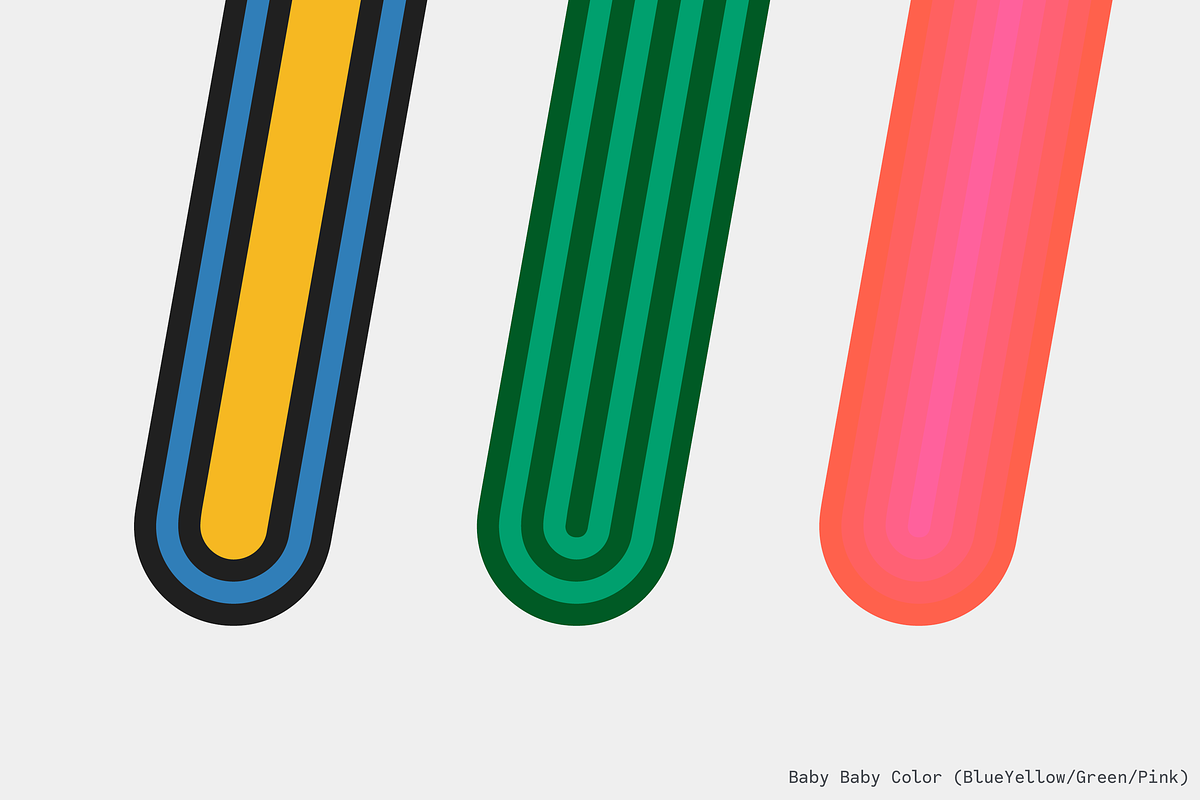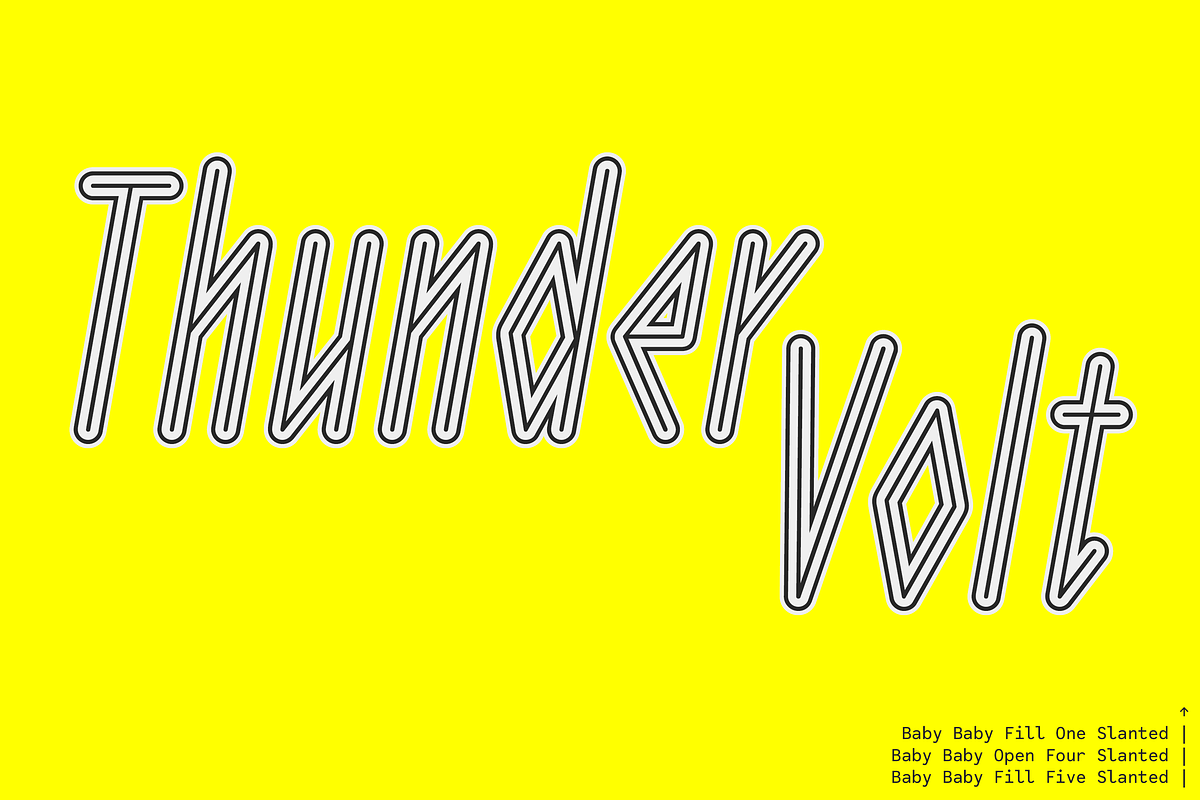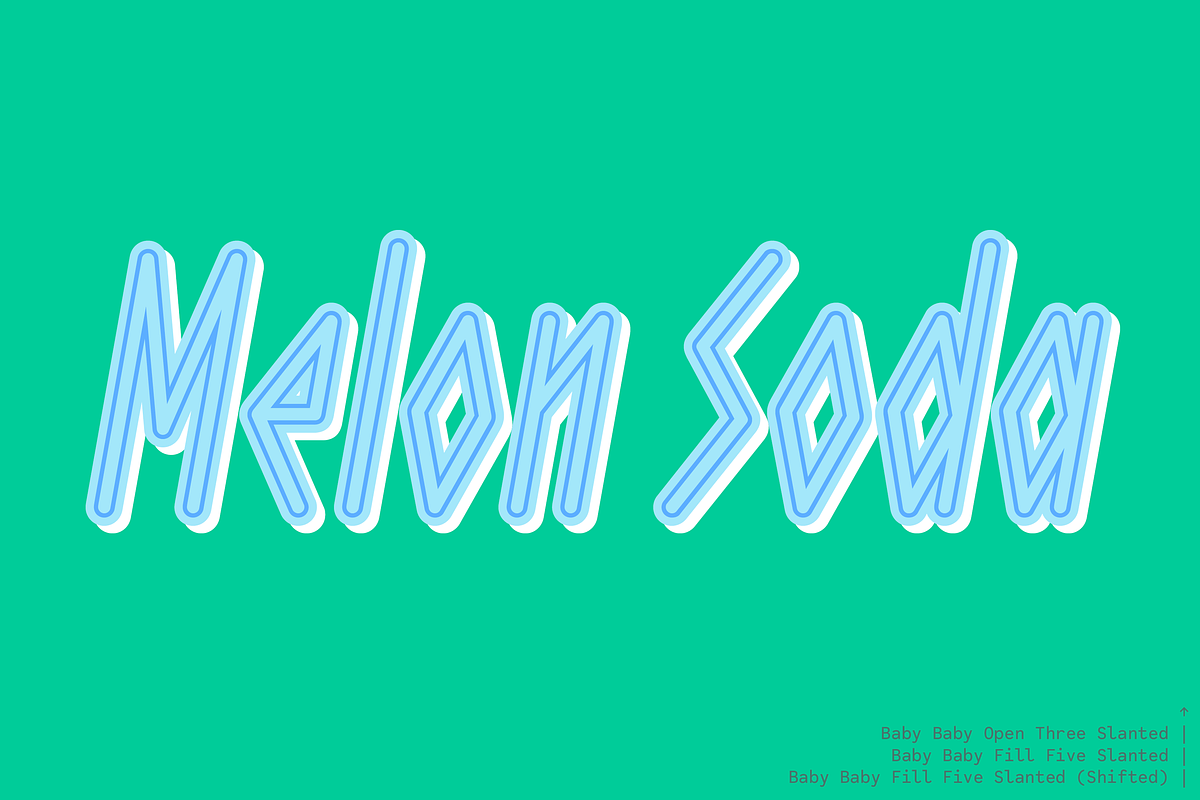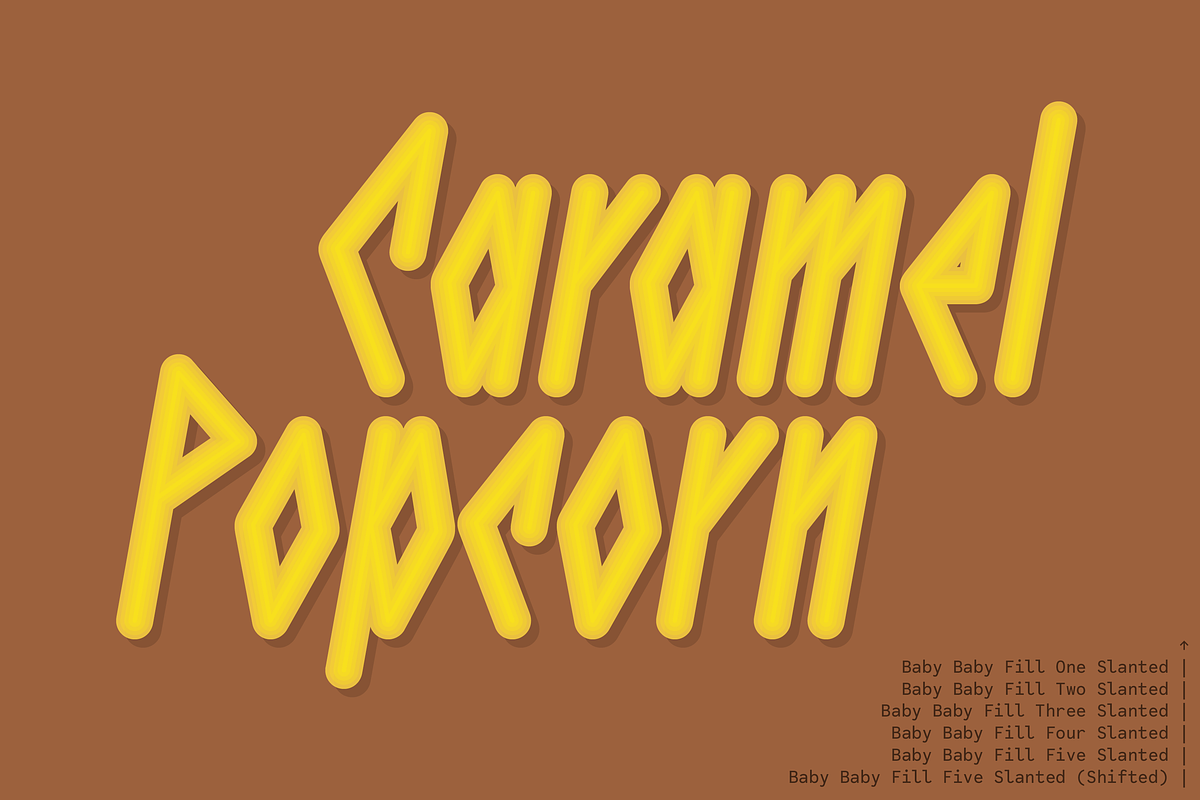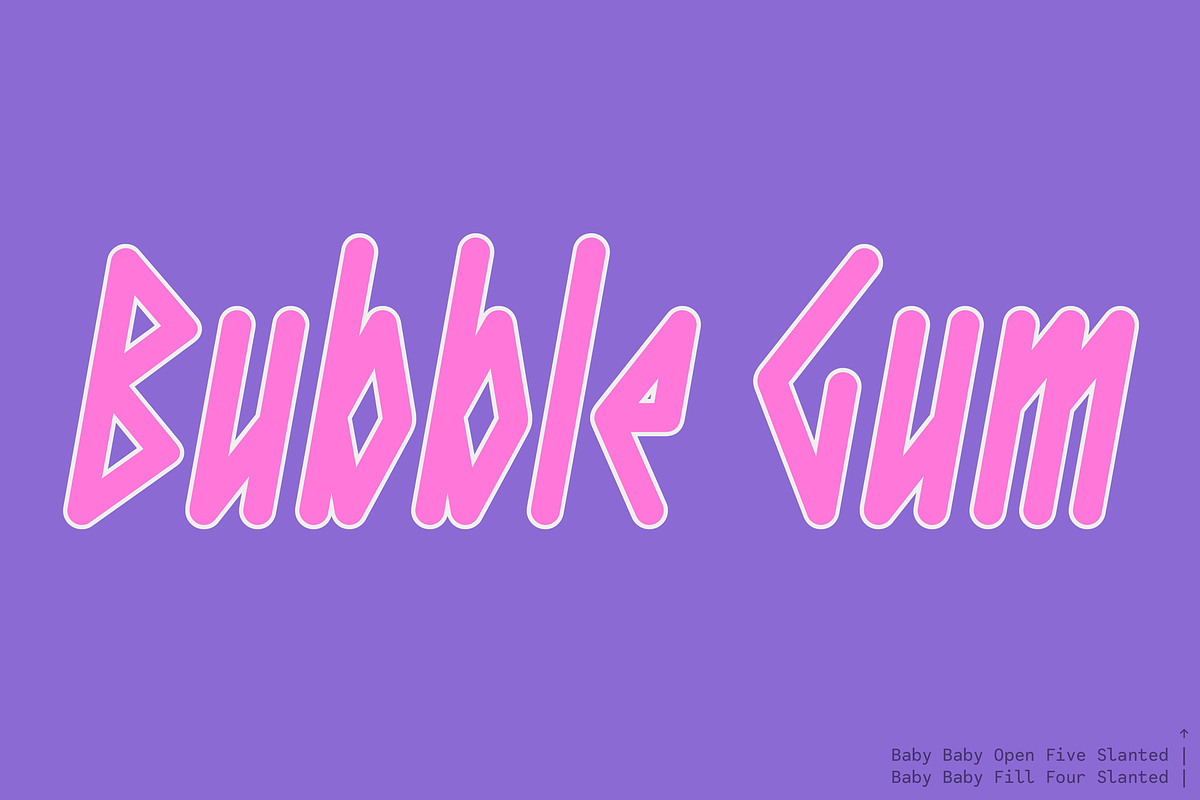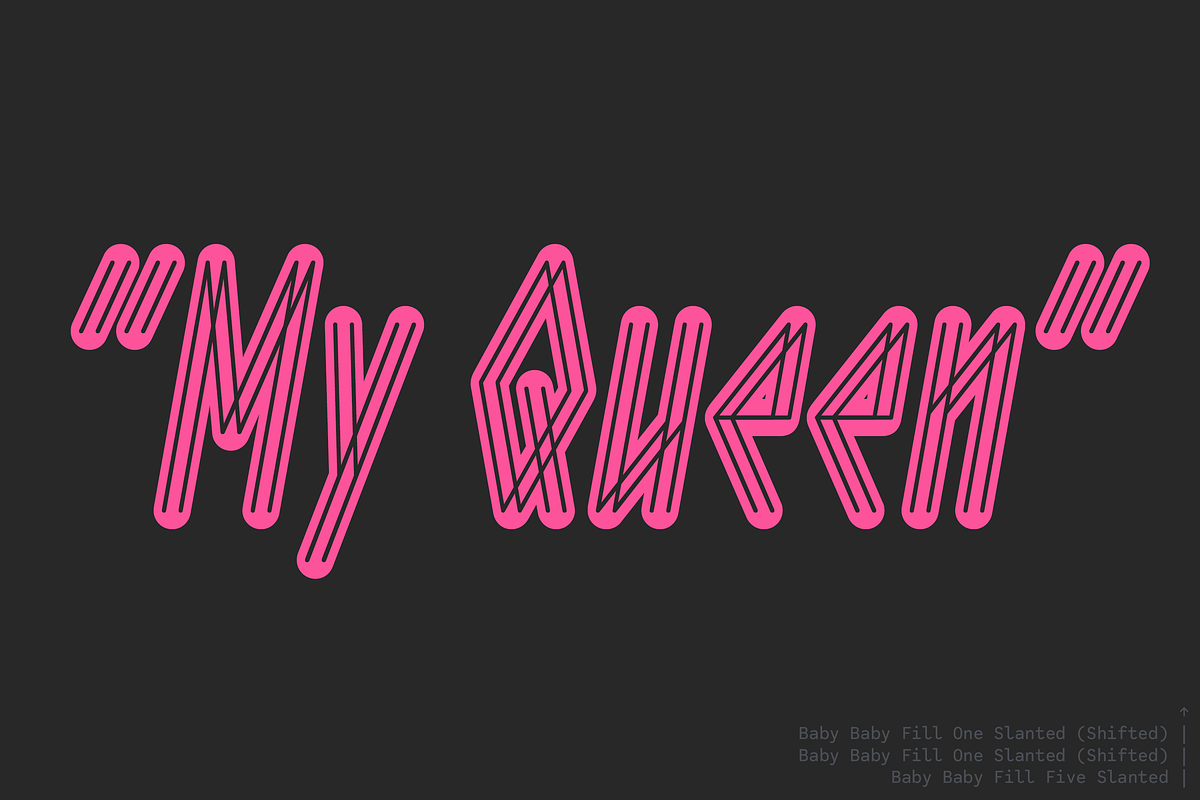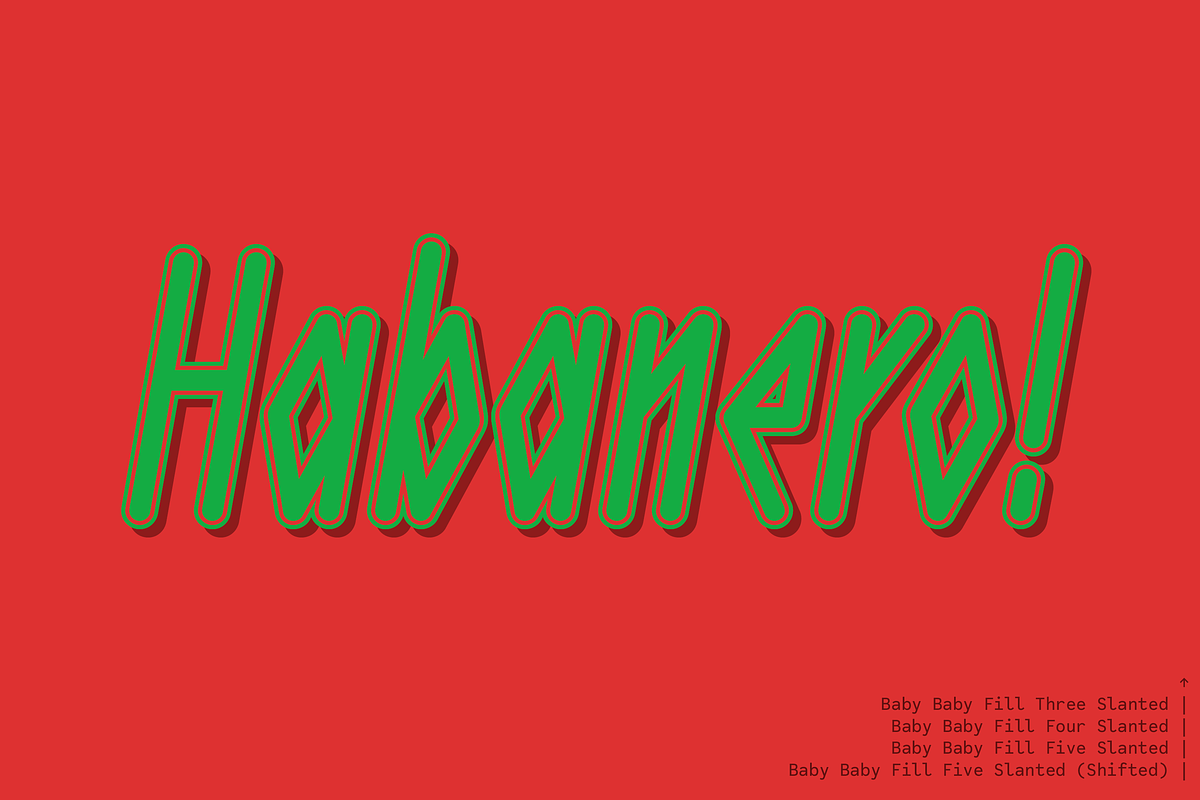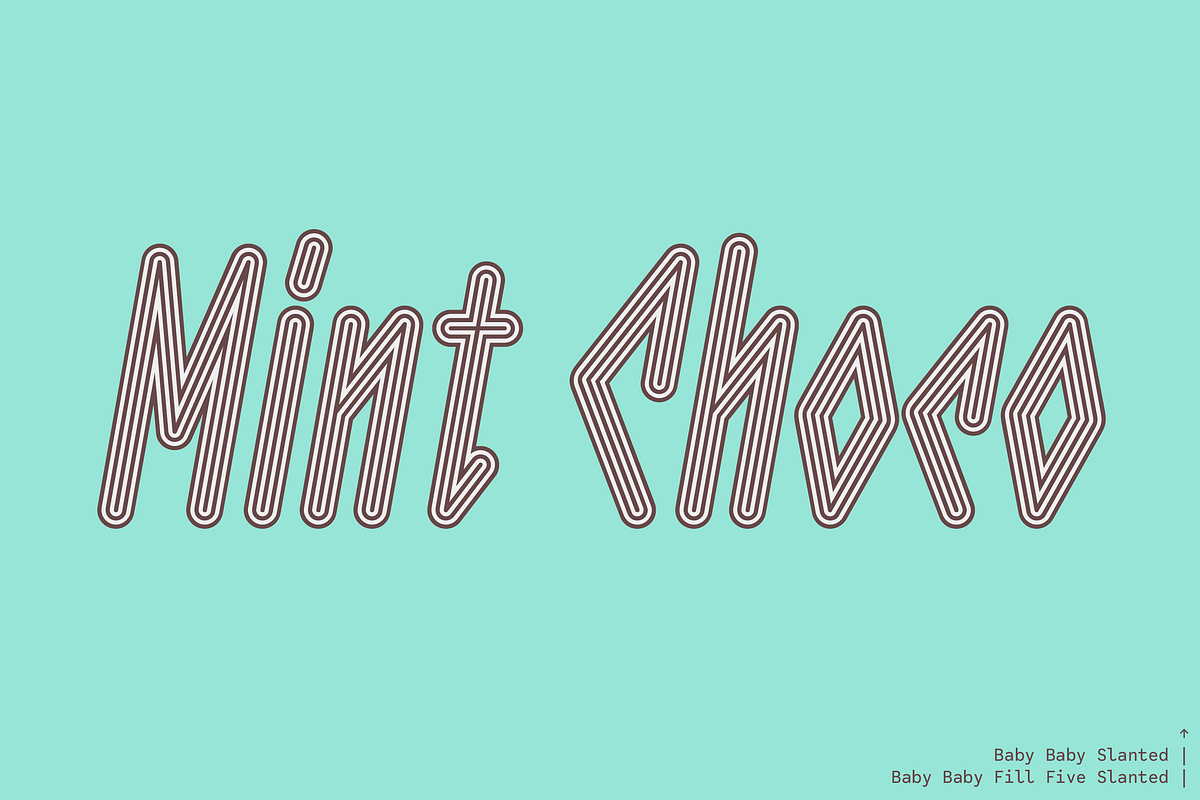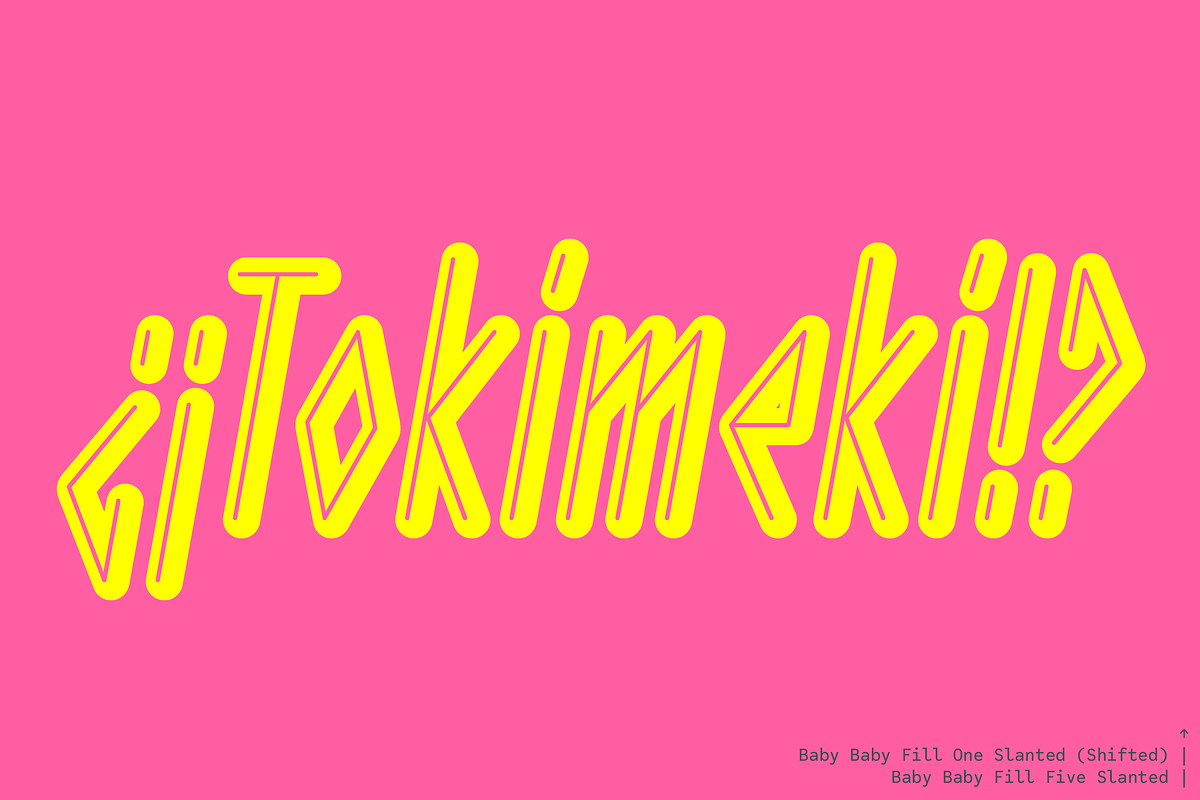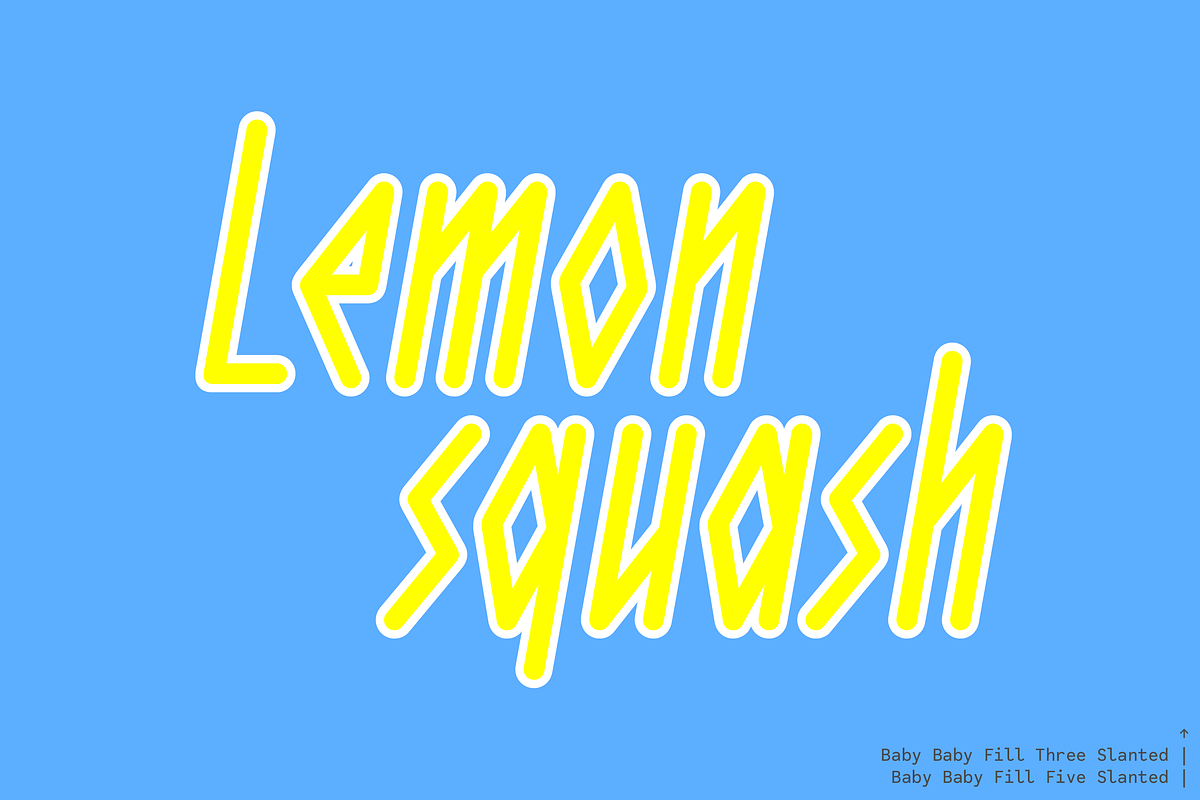
Baby Baby
Baby Baby is a super-experimental display font family created specifically for titles, logos, and any design that demands attention. Its design is intentionally flat, dry, cool, and mechanical—built entirely with straight mono-lines, even in curves and connections. This approach removes any trace of human warmth, resulting in a uniquely austere and futuristic look.
- Baby Baby Upright and Slanted are striped styles with bold visual impact. Each can be used independently for high-impact results.
- The Baby Baby Fill family decomposes these stripes into five distinct mono-line styles, each expanding the stem width in equal intervals.
- By layering and stacking these styles, you can create entirely new typographic effects—the combinations are limitless and completely up to you.
- The Baby Baby Open family works on the same stacking principle, offering even more creative flexibility.
As you might expect, this system is designed with color layering in mind. The Baby Baby Color family demonstrates this potential with pre-made examples including colored stripes, gradients, and rim effects. By assigning different colors to each layer, Baby Baby unlocks infinite possibilities for striking, customizable, and truly one-of-a-kind designs.